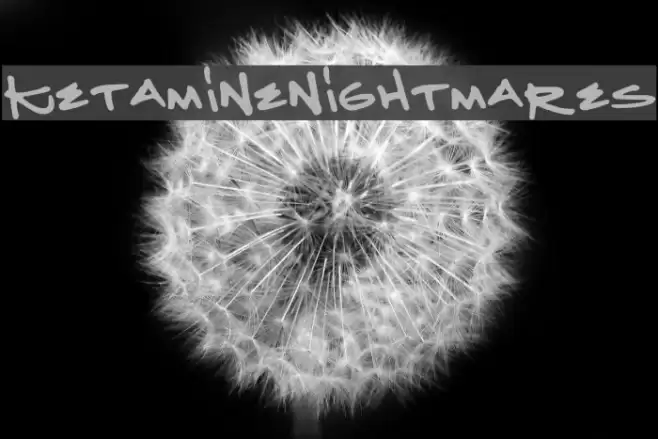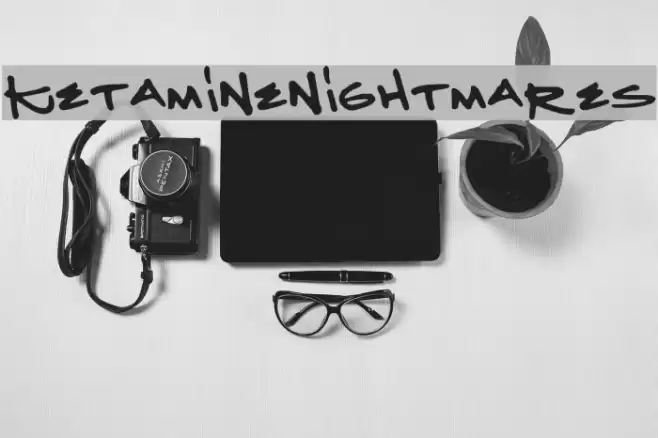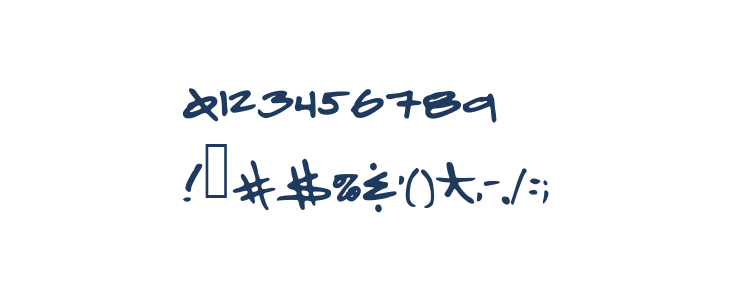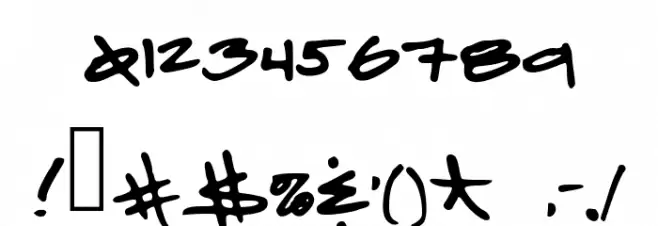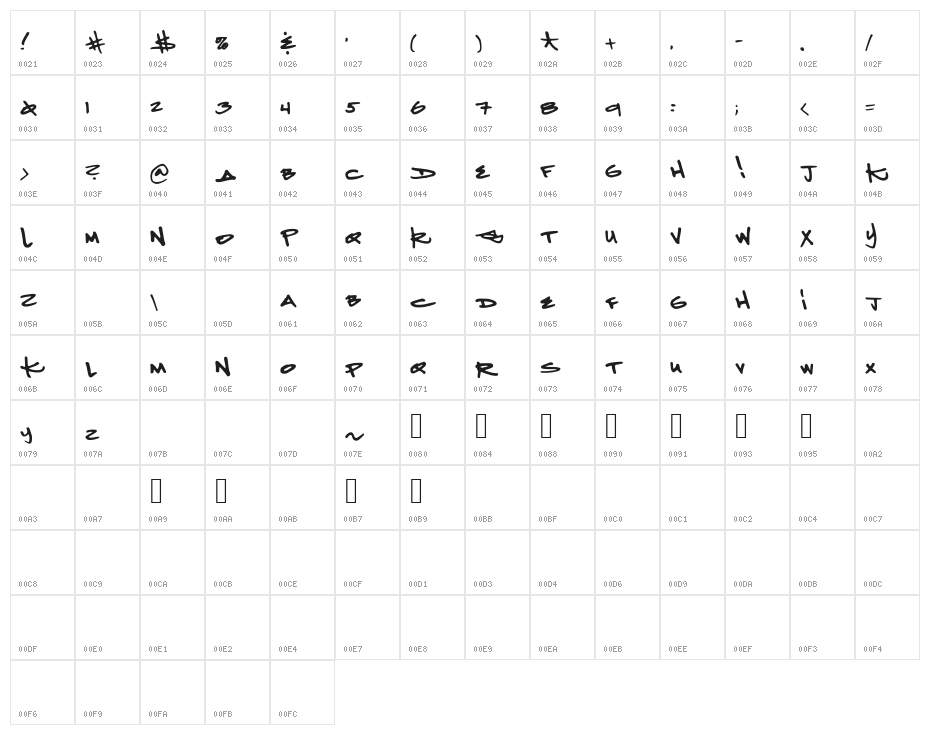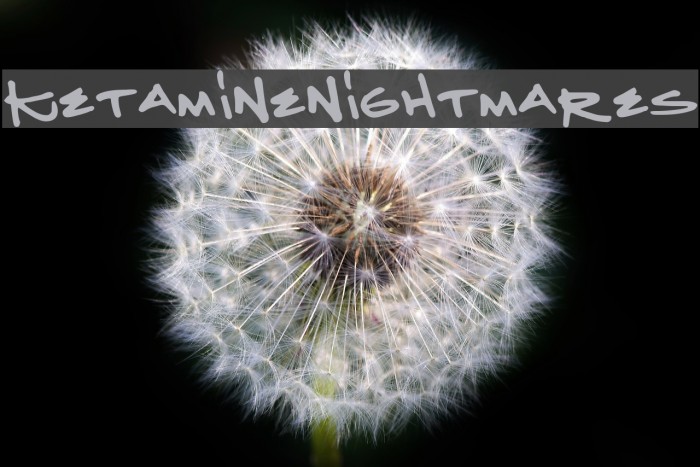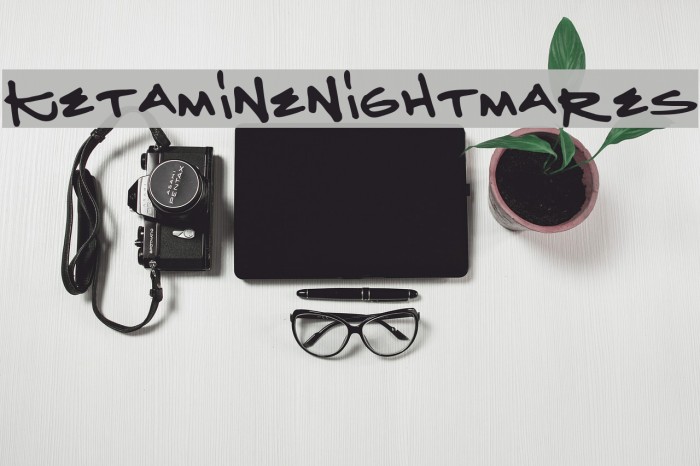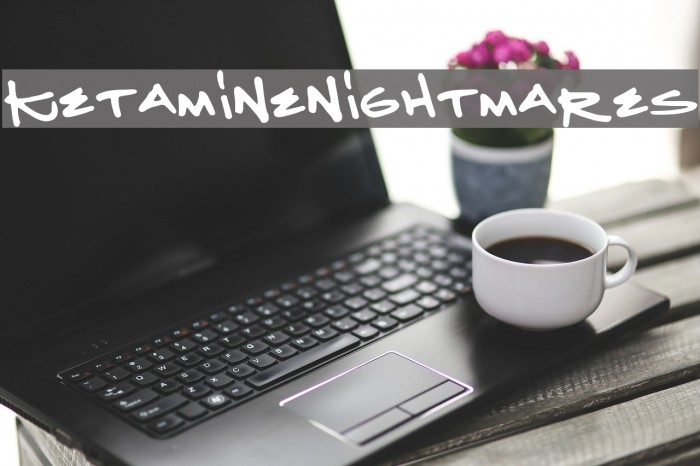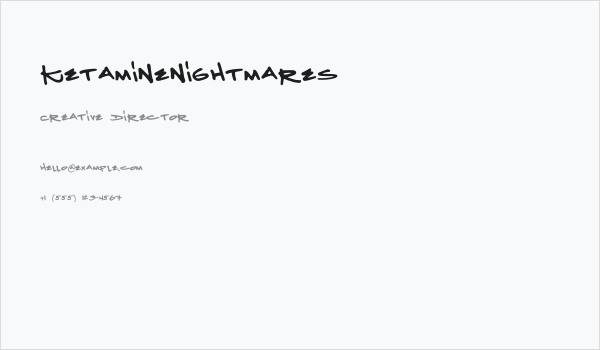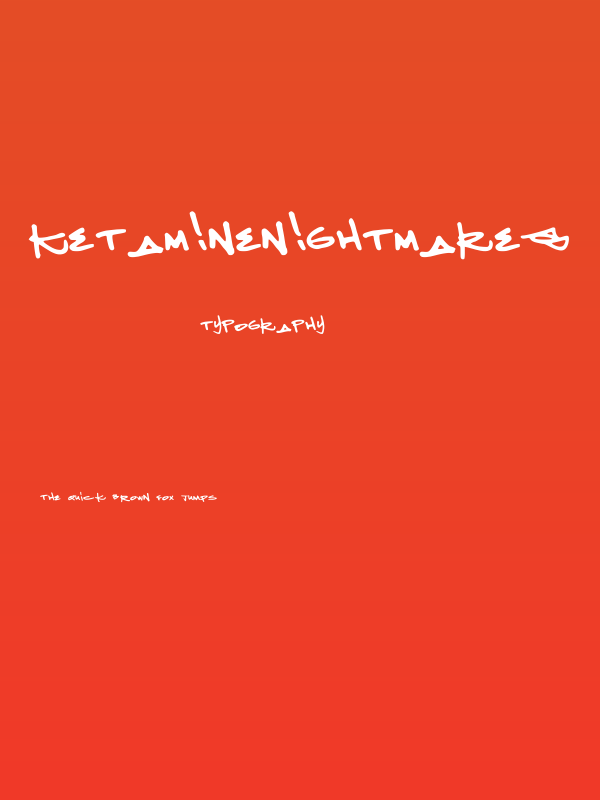
KetamineNightmares Font
KetamineNightmares Description
This font features a bold, handwritten style with a playful and slightly chaotic appearance. The letters are characterized by their uneven strokes and varying thickness, giving them a dynamic and energetic feel. The uppercase and lowercase letters maintain a consistent style, with exaggerated curves and angles that add to the font's unique personality. Numbers and special characters follow the same design principles, ensuring a cohesive look across all elements. The font's informal and expressive nature makes it suitable for creative projects that require a touch of whimsy and individuality.
A bold, handwritten font with a playful and chaotic style from Handwritten fonts.
- Proposed Projects: Ideal for posters, album covers, graffiti art, and creative branding projects.